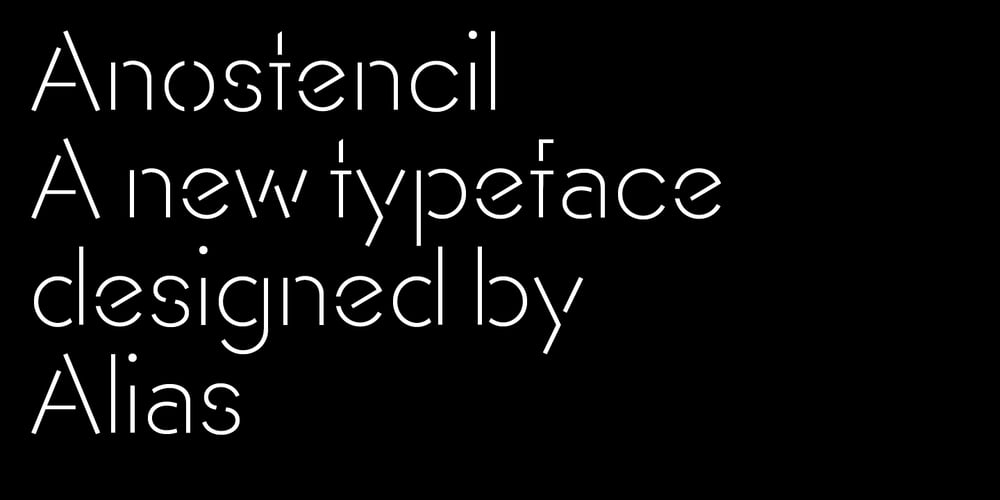
AnoStencil
AnoStencil font
AnoStencil Font Family was designed by Gareth Hague and published by Alias. AnoStencil contains 4 styles and family package options. Stencil typefaces are popular because they are striking and decorative, and their associations – whether Utility, Travel, Vernacular, etc – are evocative. Anostencil is developed from, but not exactly like, our Ano typeface. Ano’s geometric skeleton, tweaked a bit, allows for a level of abstraction while retaining legibility. Some of Ano’s characters, such as the a, e, f and r, have been amended to make clearer, more graphic shapes when the stencil design has been applied. Different application of the stencil gaps in the letters make functional but decorative and expressive linear forms. This is particularly evident in Anostencil’s extended character set which features codified, semi abstract shapes. So the stencil design in Anostencil has been applied in not necessarily the most logical or immediate way, but in a way that makes each letter a striking and graphic shape.